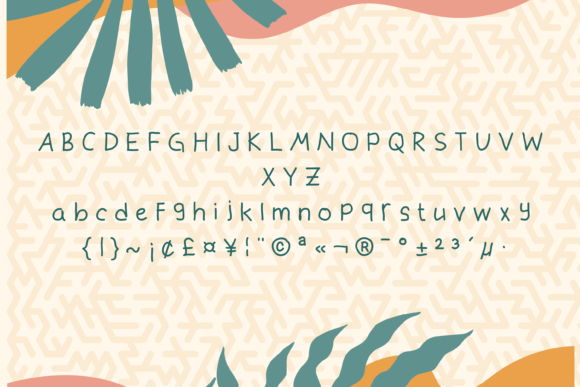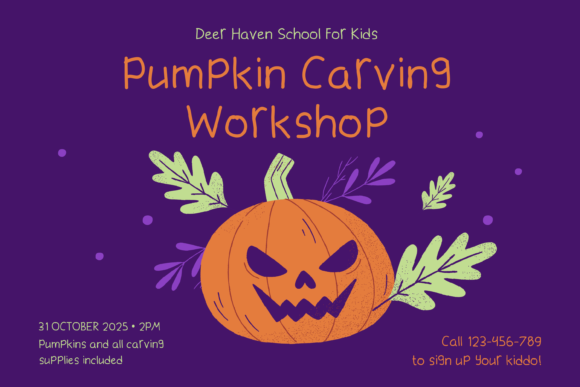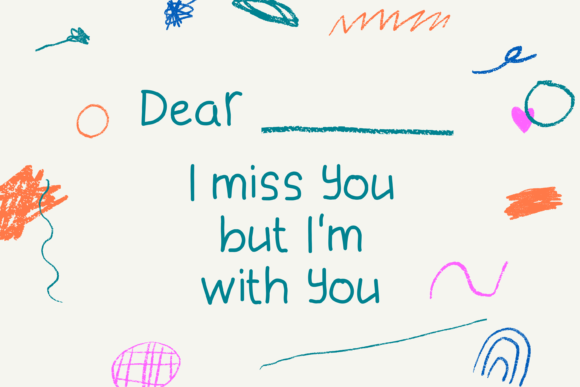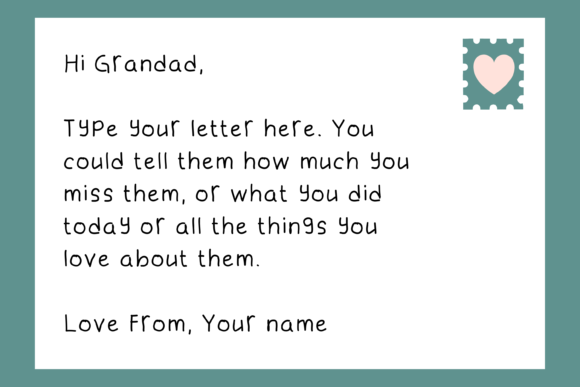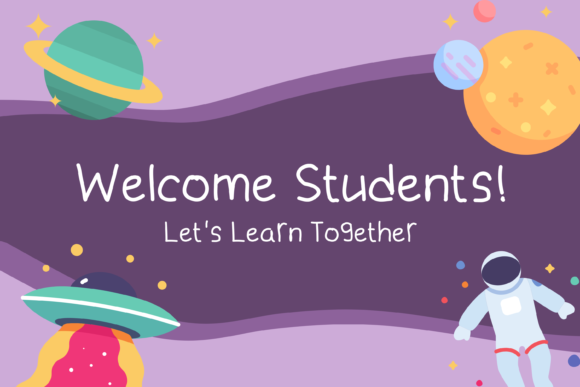
Kids Design Font
About Kids Design Font
Kids Design is a cute and friendly handwritten font. Add it confidently to your favorite creations and let yourself be amazed by the outcome generated.